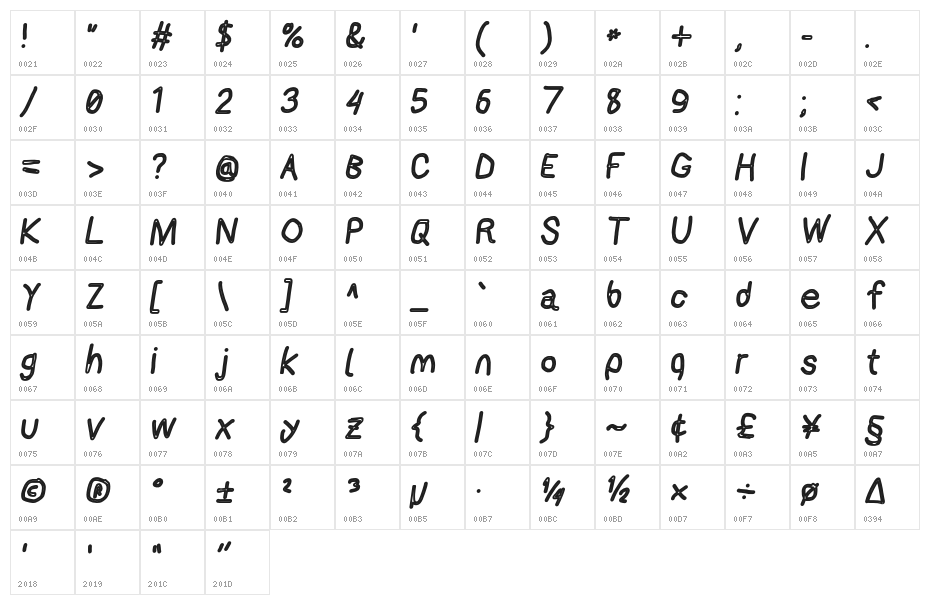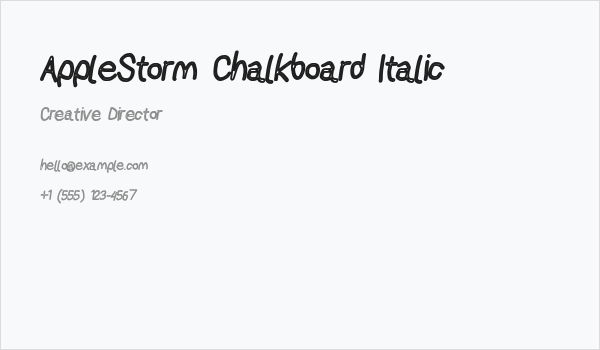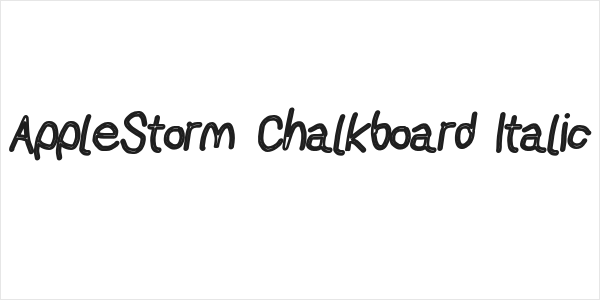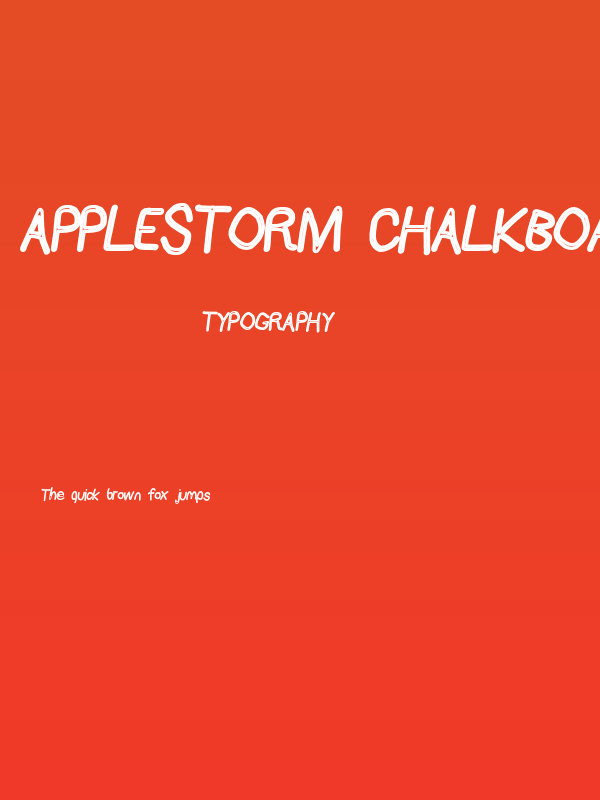
AppleStorm Chalkboard Italic Font
AppleStorm Chalkboard Italic Description
This font features a playful, handwritten style reminiscent of chalkboard writing. The letters are bold and slightly slanted, giving an italicized appearance that adds a dynamic and informal touch. Each character is crafted with a consistent stroke width, creating a uniform look across the alphabet. The rounded edges and smooth curves contribute to its friendly and approachable feel. The numbers and special characters maintain the same whimsical style, ensuring cohesion throughout. This font is perfect for projects that require a casual and fun aesthetic.
| Use Case | Headlines, Informal text, Branding |
| Proposed Projects | Ideal for educational materials, children's books, playful branding, and casual invitations. |